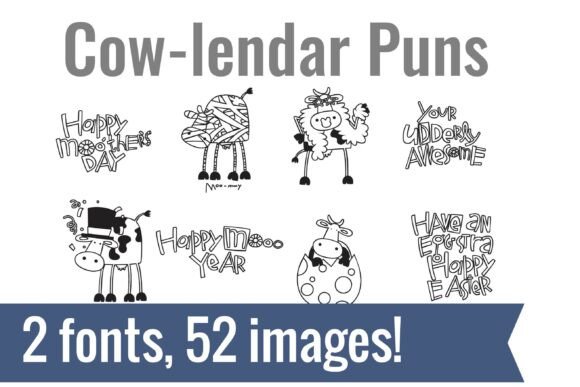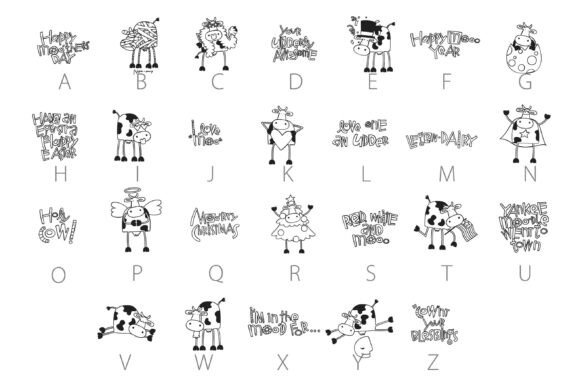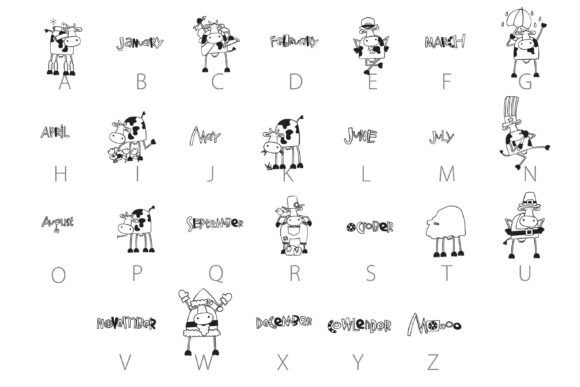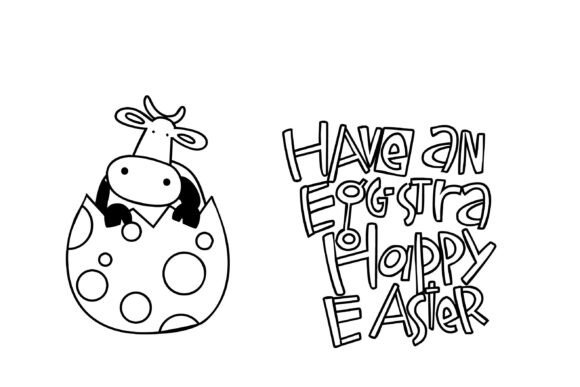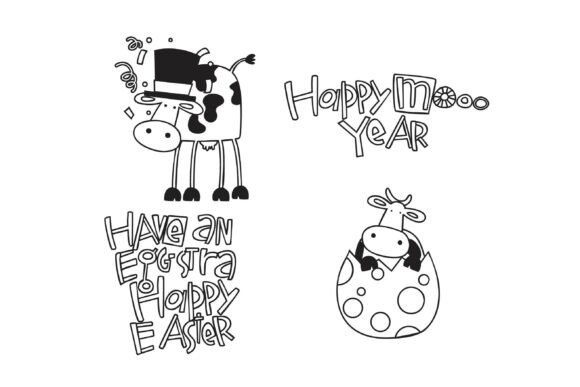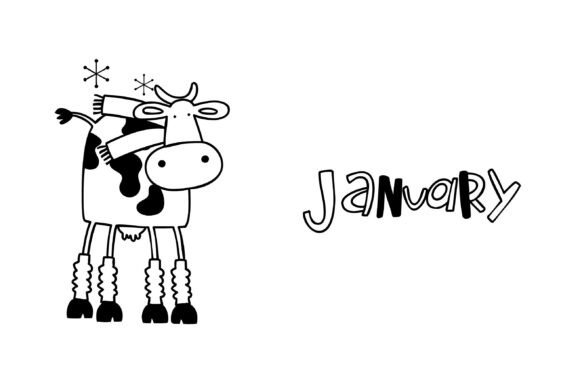
Cow-lendar Dingbats Font: Add a Whimsical Touch to Your Designs
Are you tired of using the same old boring fonts for your designs? Look no further than the Cow-lendar Dingbats Font, a unique and playful font set that features expressive, calendar-themed bovine illustrations. This delightful font set is perfect for designers and crafters who want to add a touch of whimsy to their creations.
What is Cow-lendar Dingbats Font?
The Cow-lendar Dingbats Font is a pair of dingbat typefaces that feature 52 memorable glyphs, each designed to represent a month of the year through a delightful cow illustration. From January’s cow bundled up in a scarf to February’s cow holding an arrow (Cupid-style!), each character is carefully crafted to bring a smile to your face. The font’s fun, sketchy, line-art style makes it perfect for creating custom calendars, printable planner pages, unique classroom decorations, or playful greeting cards for any season.
Key Features of Cow-lendar Dingbats Font
- 52 unique glyphs: Each character represents a month of the year, making it easy to create custom calendars and planners.
- Playful, cow-themed illustrations: Add a touch of whimsy to your designs with these delightful cow illustrations.
- Fun, sketchy, line-art style: Perfect for creating custom designs that are both functional and fantastically fun.
- Dingbat font: Easy to use and scalable to any size without losing quality.
- Cohesive, scalable designs: Use the font to create a wide range of designs, from custom calendars to printable planner pages.
Uses for Cow-lendar Dingbats Font
The Cow-lendar Dingbats Font is perfect for a variety of design projects, including:
- Custom calendars: Create unique and personalized calendars for yourself or as gifts.
- Printable planner pages: Add a touch of whimsy to your planner pages and make them more fun to use.
- Classroom decorations: Create fun and engaging classroom decorations, such as calendar displays or bulletin boards.
- Greeting cards: Use the font to create playful greeting cards for any season or occasion.
- Time-tracking and organizational projects: Add a playful, cow-themed twist to your time-tracking and organizational projects.
Why Choose Cow-lendar Dingbats Font?
There are many reasons why you should choose the Cow-lendar Dingbats Font for your design projects:
- Unique and playful designs: The font features unique and playful designs that will set your creations apart from the rest.
- Easy to use: The font is easy to use and can be scaled to any size without losing quality.
- Versatile: The font can be used for a wide range of design projects, from custom calendars to greeting cards.
- Fun and engaging: The font’s fun and engaging designs are sure to bring a smile to your face and make your creations more enjoyable to use.
The Cow-lendar Dingbats Font is a unique and playful font set that is perfect for designers and crafters who want to add a touch of whimsy to their creations. With its 52 unique glyphs, fun, sketchy, line-art style, and cohesive, scalable designs, this font is sure to bring a smile to your face and make your designs more enjoyable to use. Whether you’re creating custom calendars, printable planner pages, or playful greeting cards, the Cow-lendar Dingbats Font is the perfect choice.